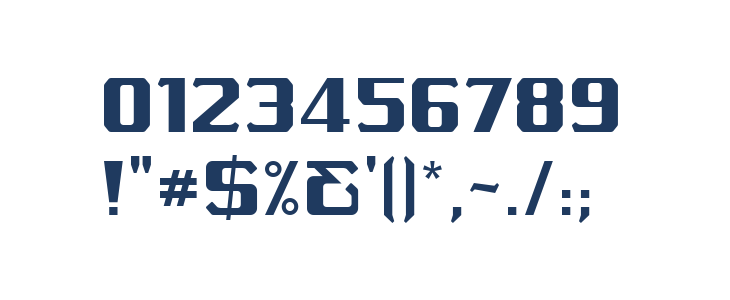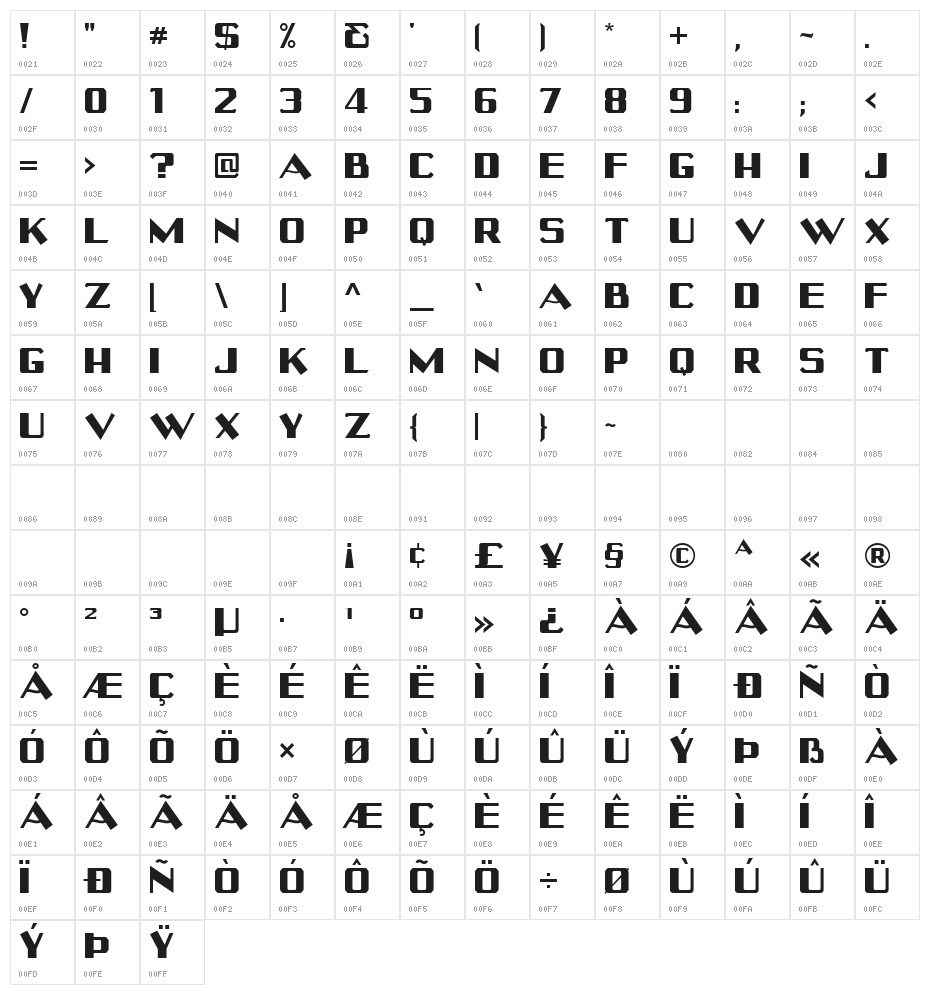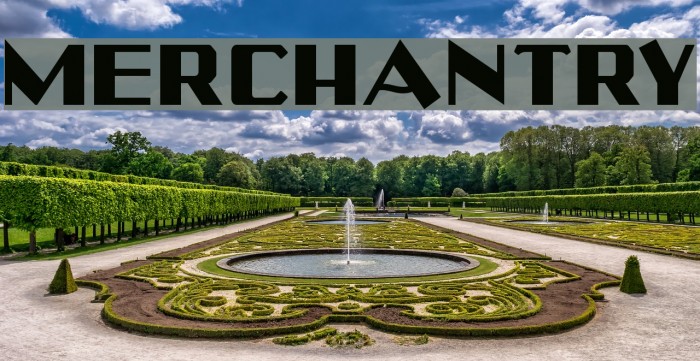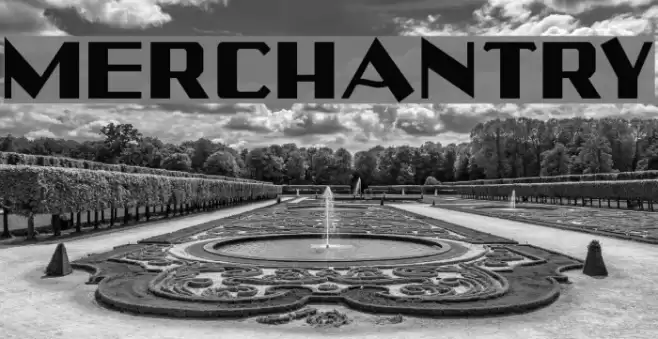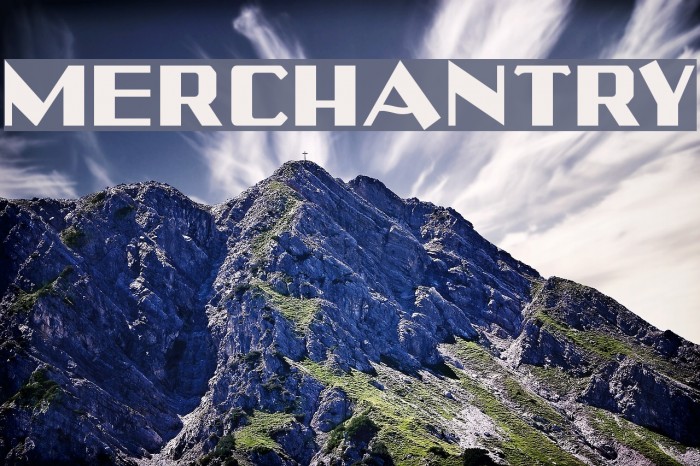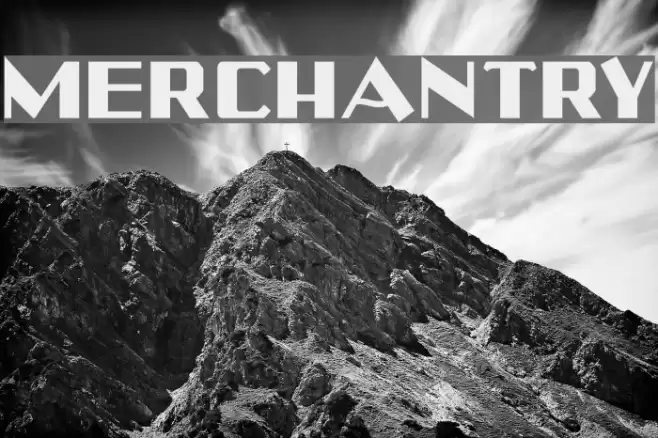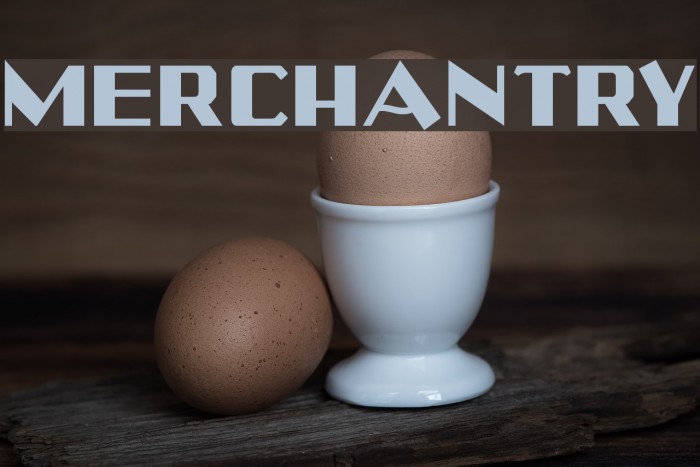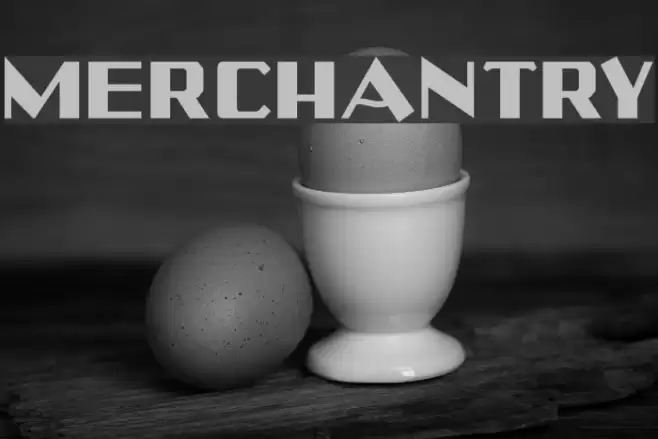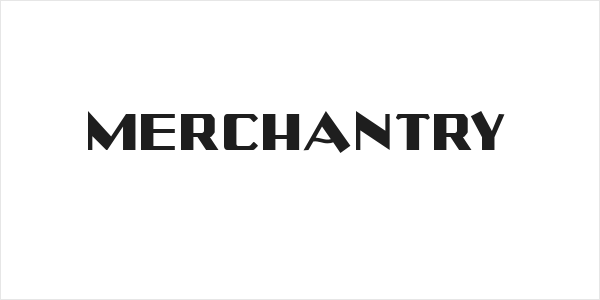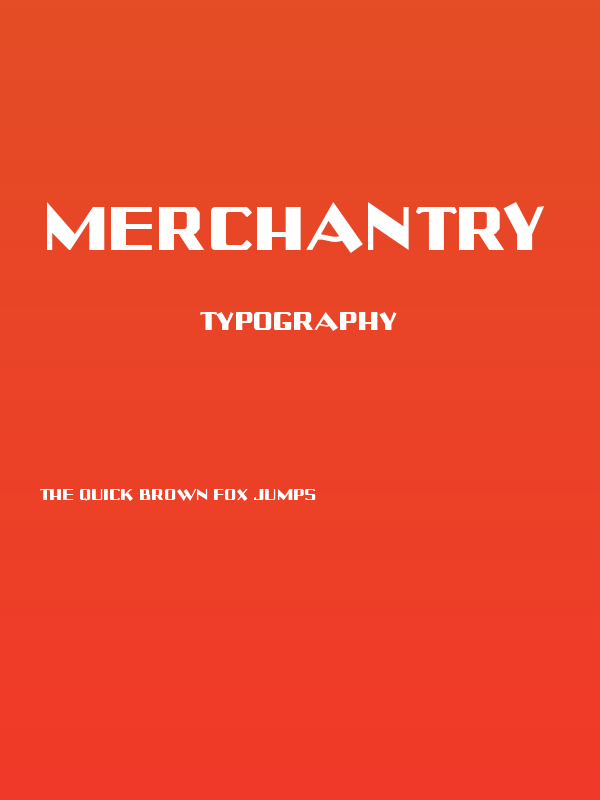
Merchantry Font
Merchantry Description
This font features a bold, geometric design with sharp angles and a futuristic aesthetic. The characters are constructed with a combination of straight lines and precise curves, giving them a strong and assertive appearance. The uppercase letters are particularly striking, with a uniform height and width that create a sense of balance and stability. The numerals and special characters maintain this cohesive style, ensuring versatility across various applications. The font's unique style makes it ideal for projects that require a modern and impactful visual presence.
| Proposed Projects | Ideal for branding, posters, video game graphics, and sci-fi themed designs. |